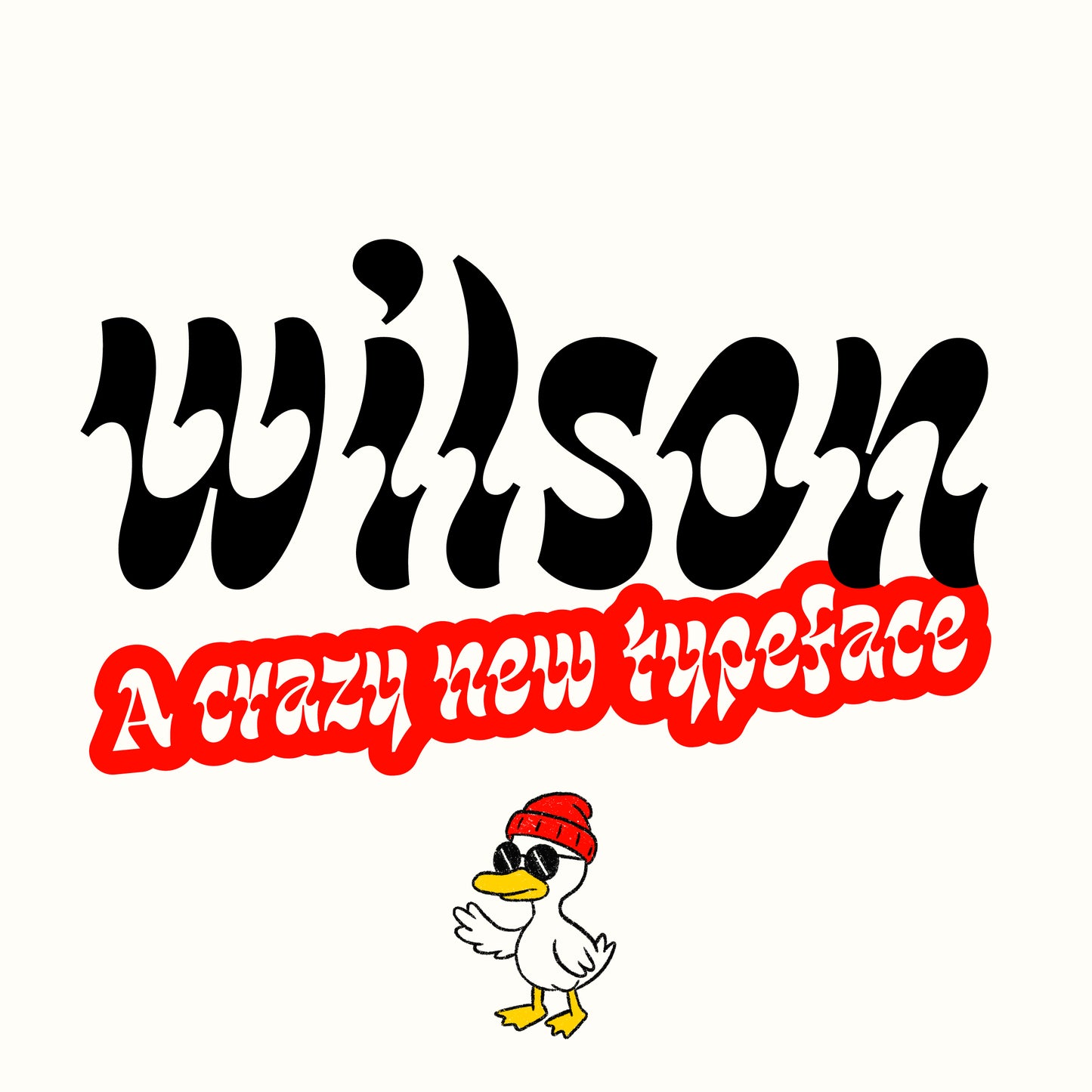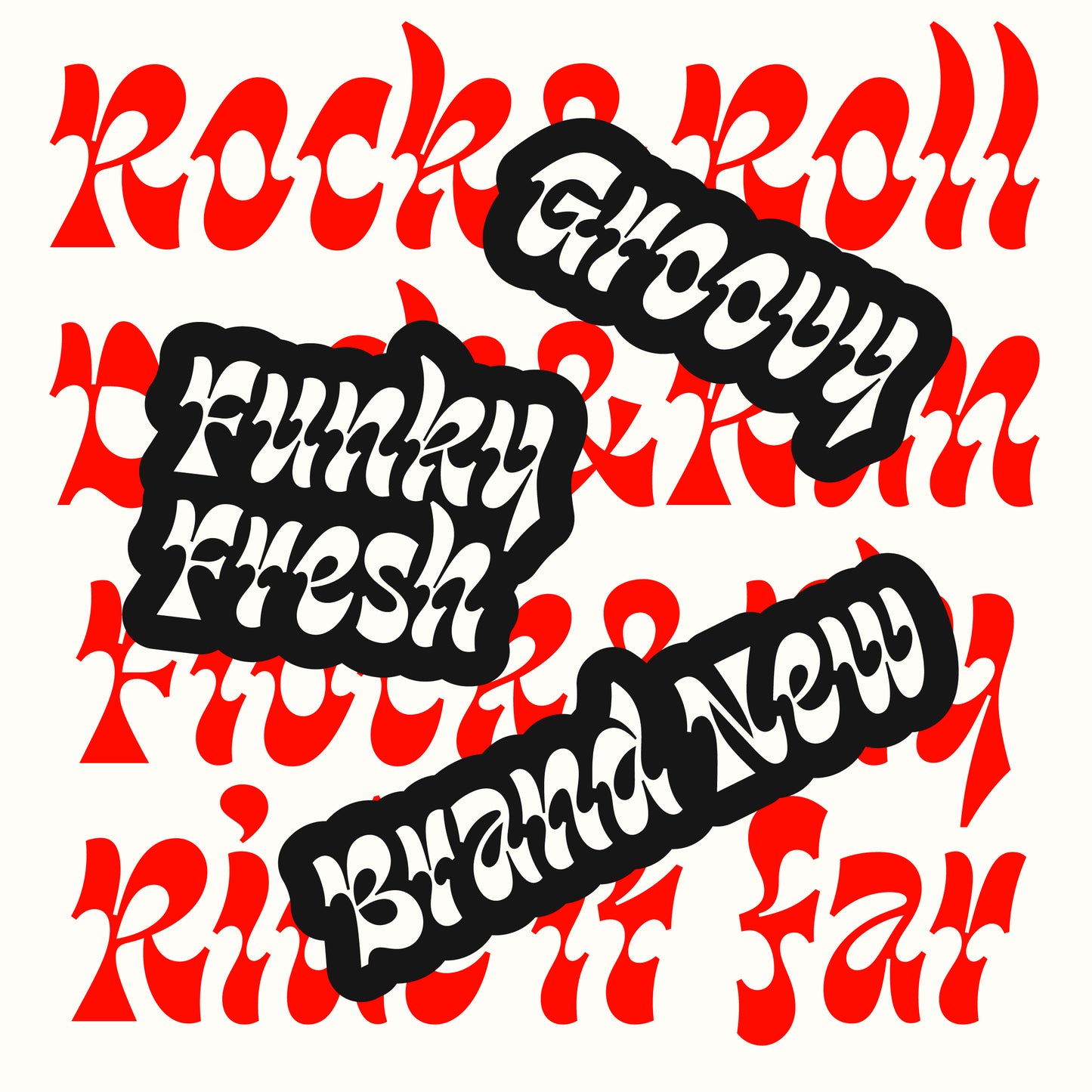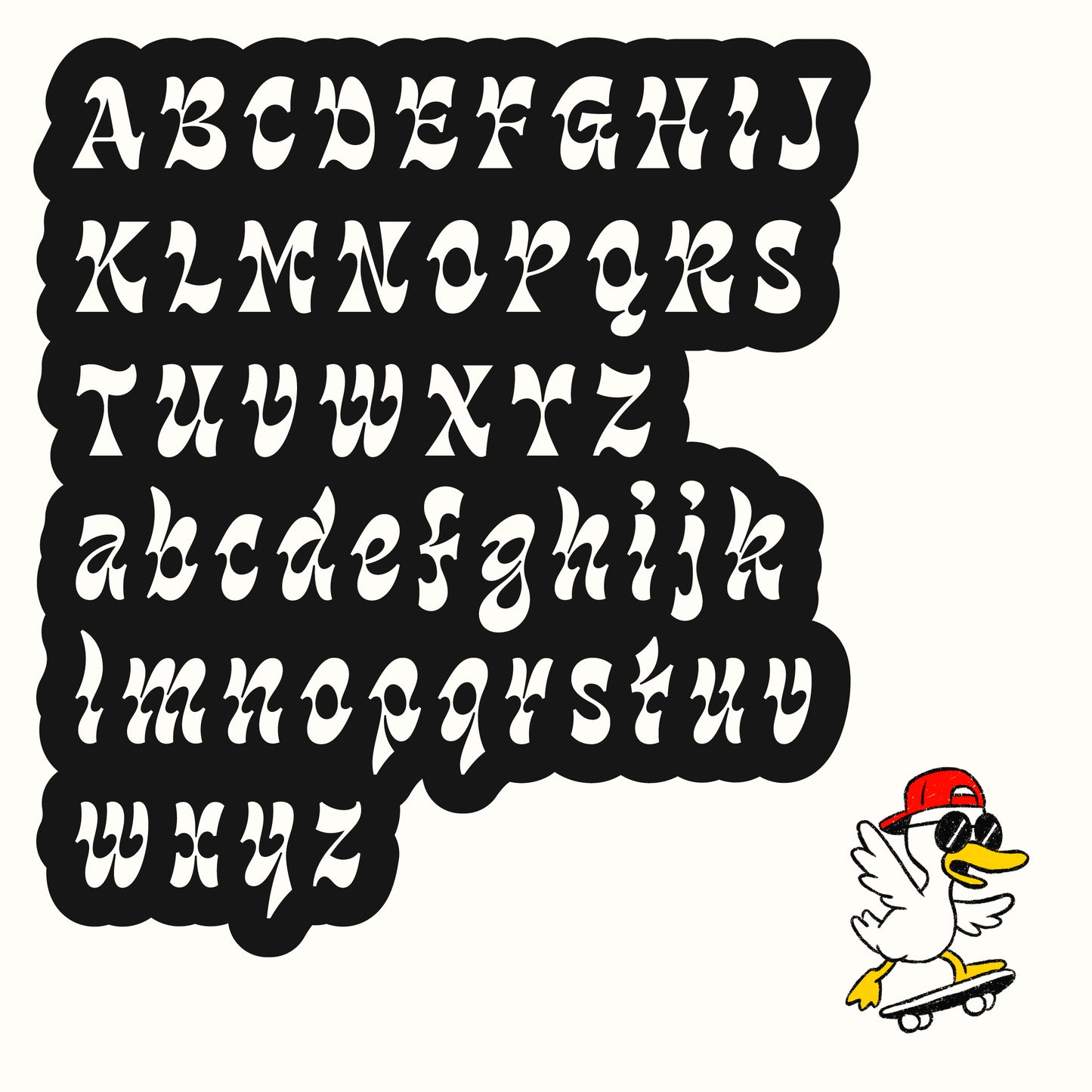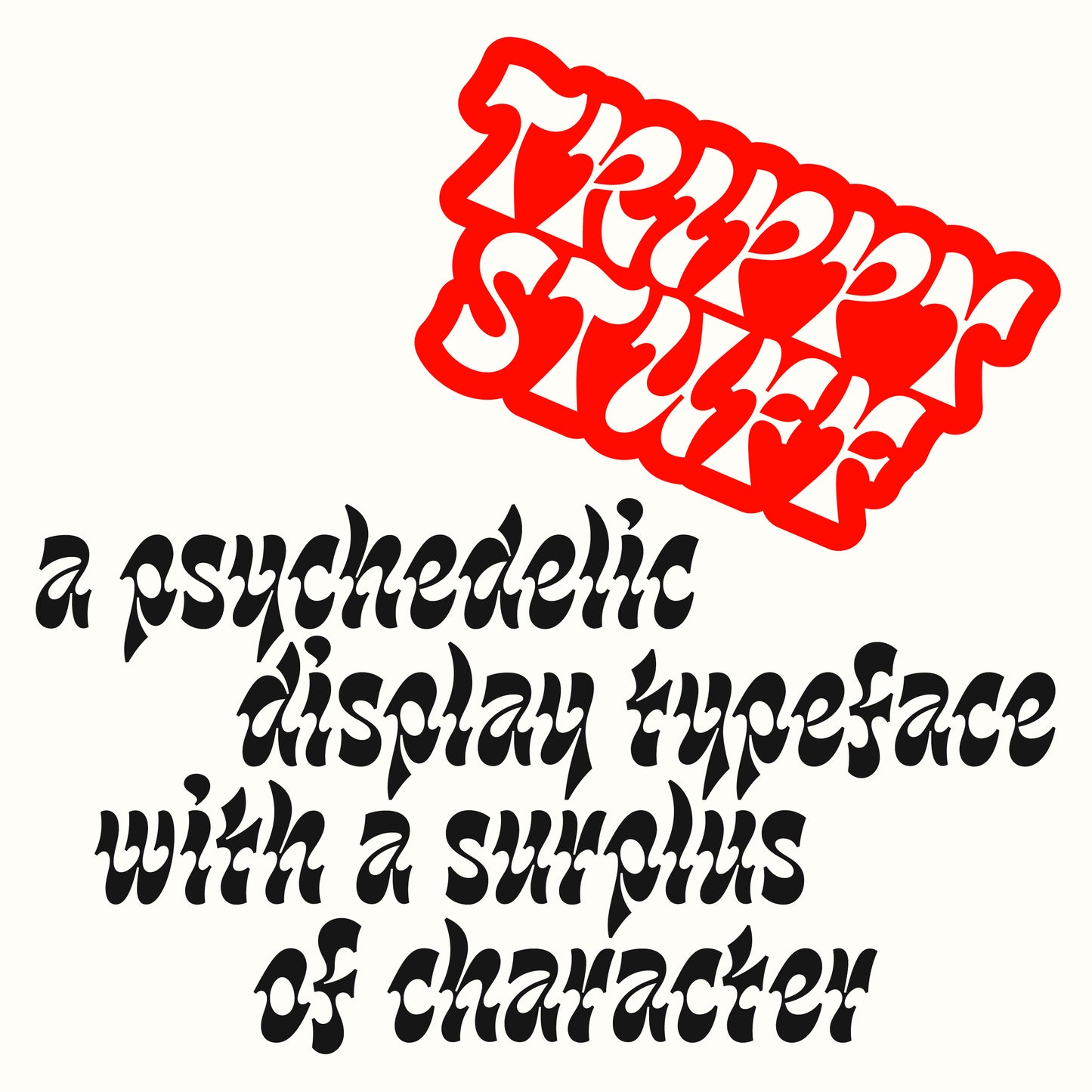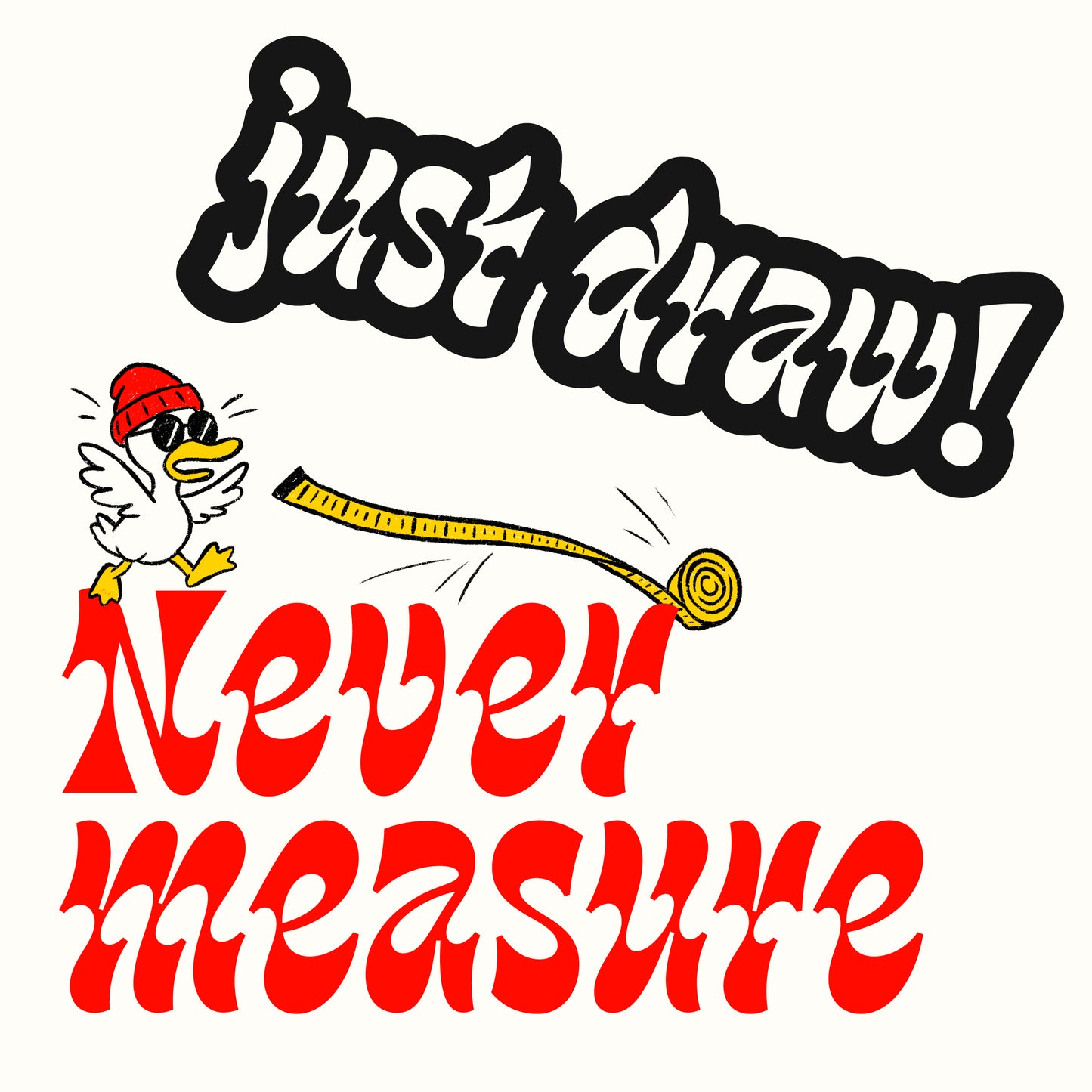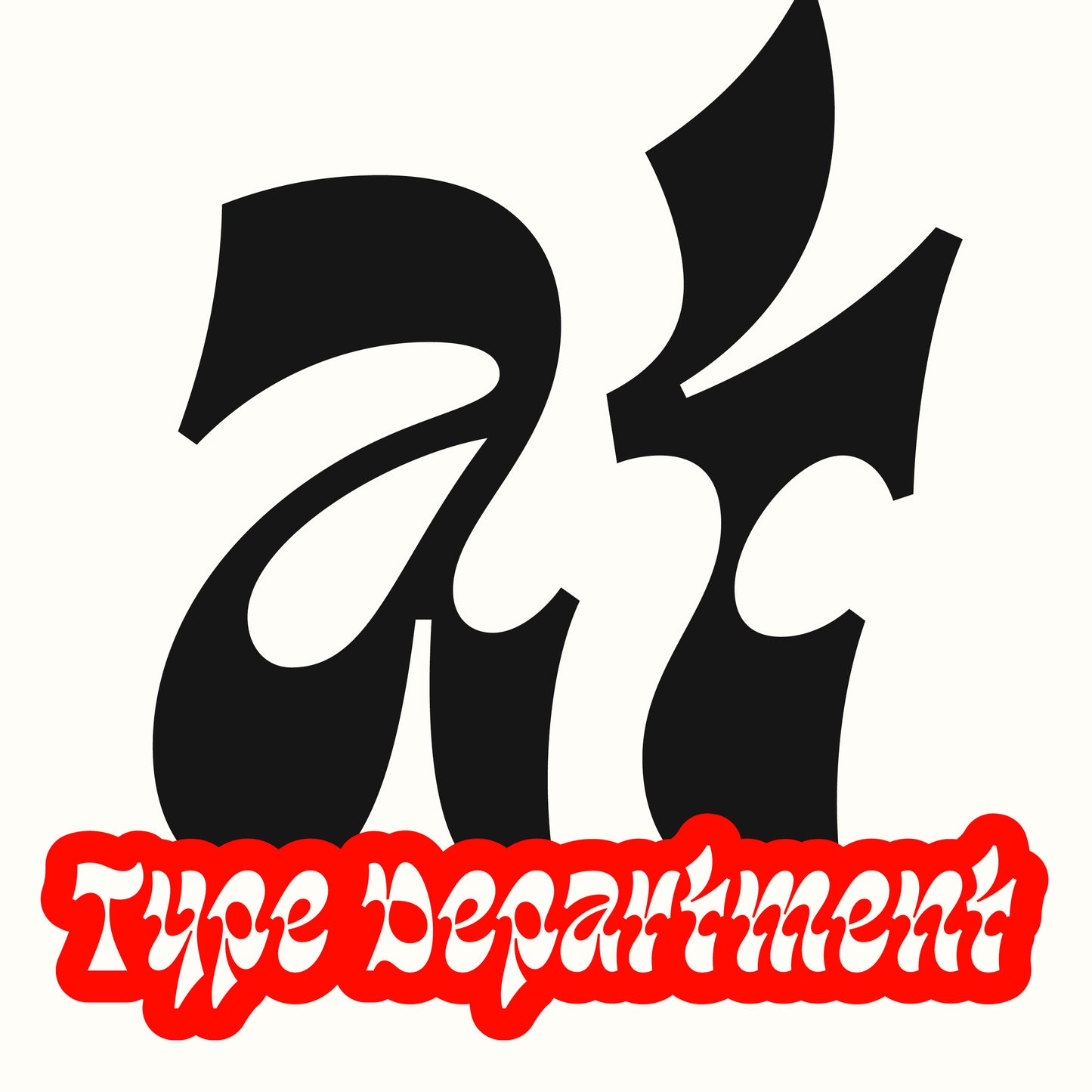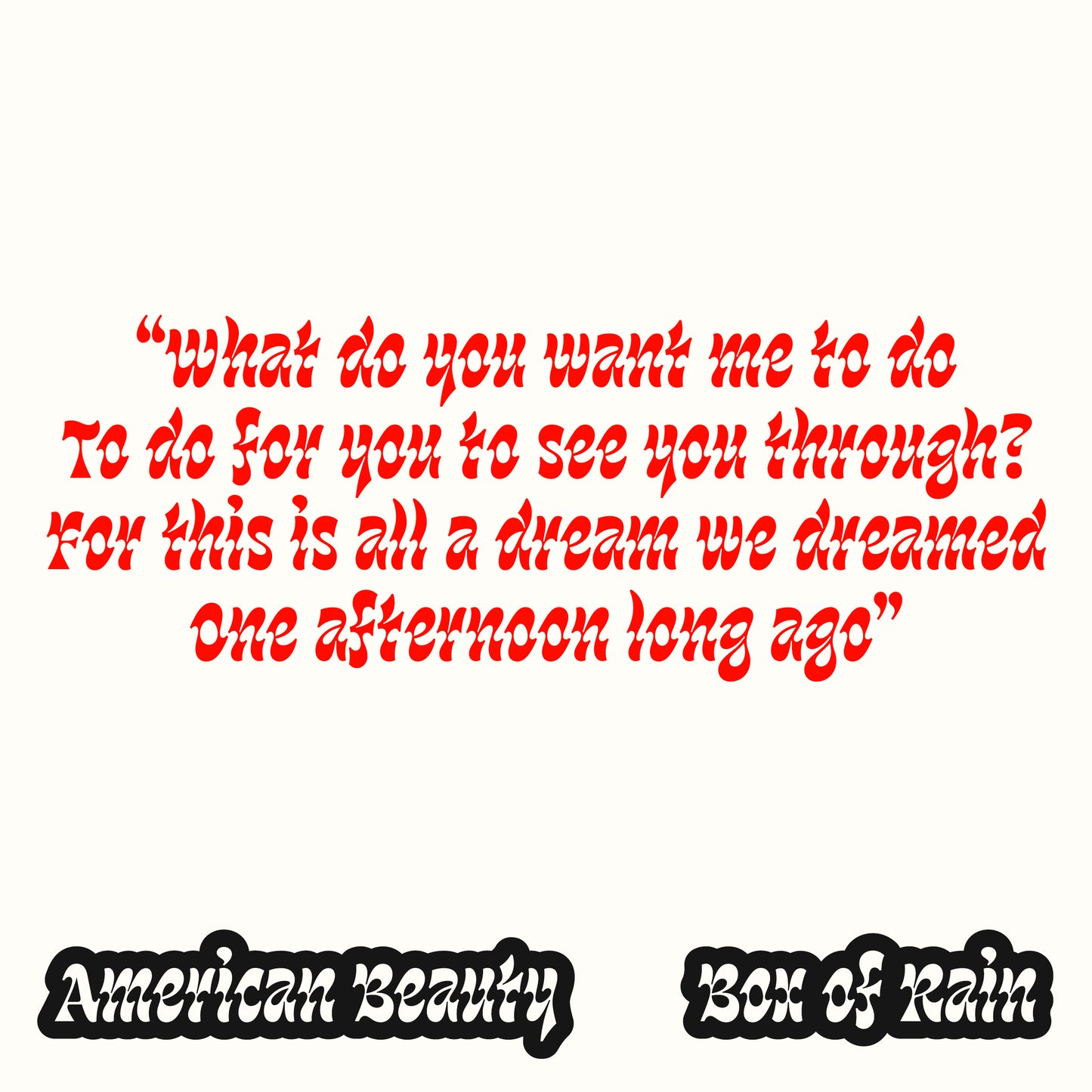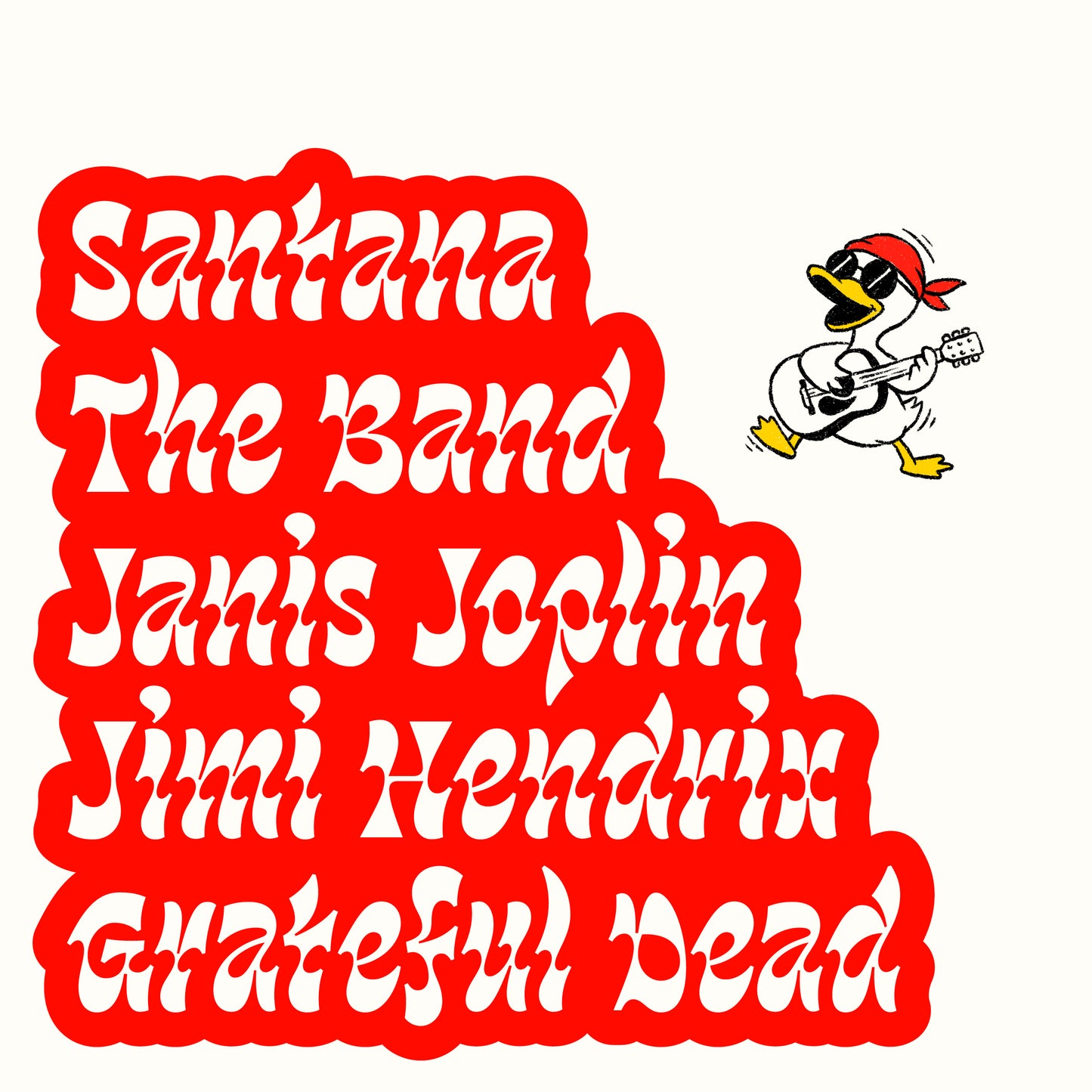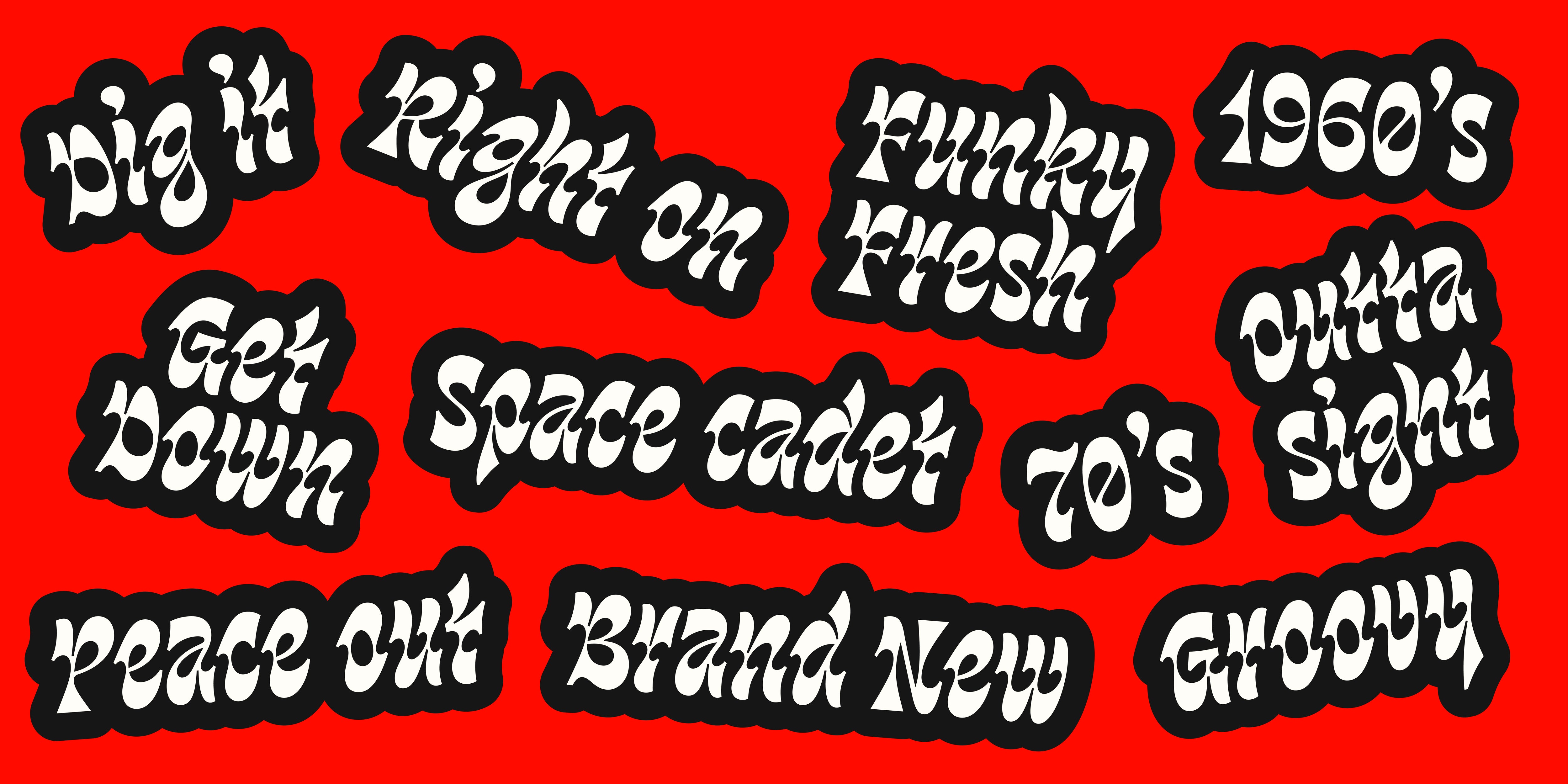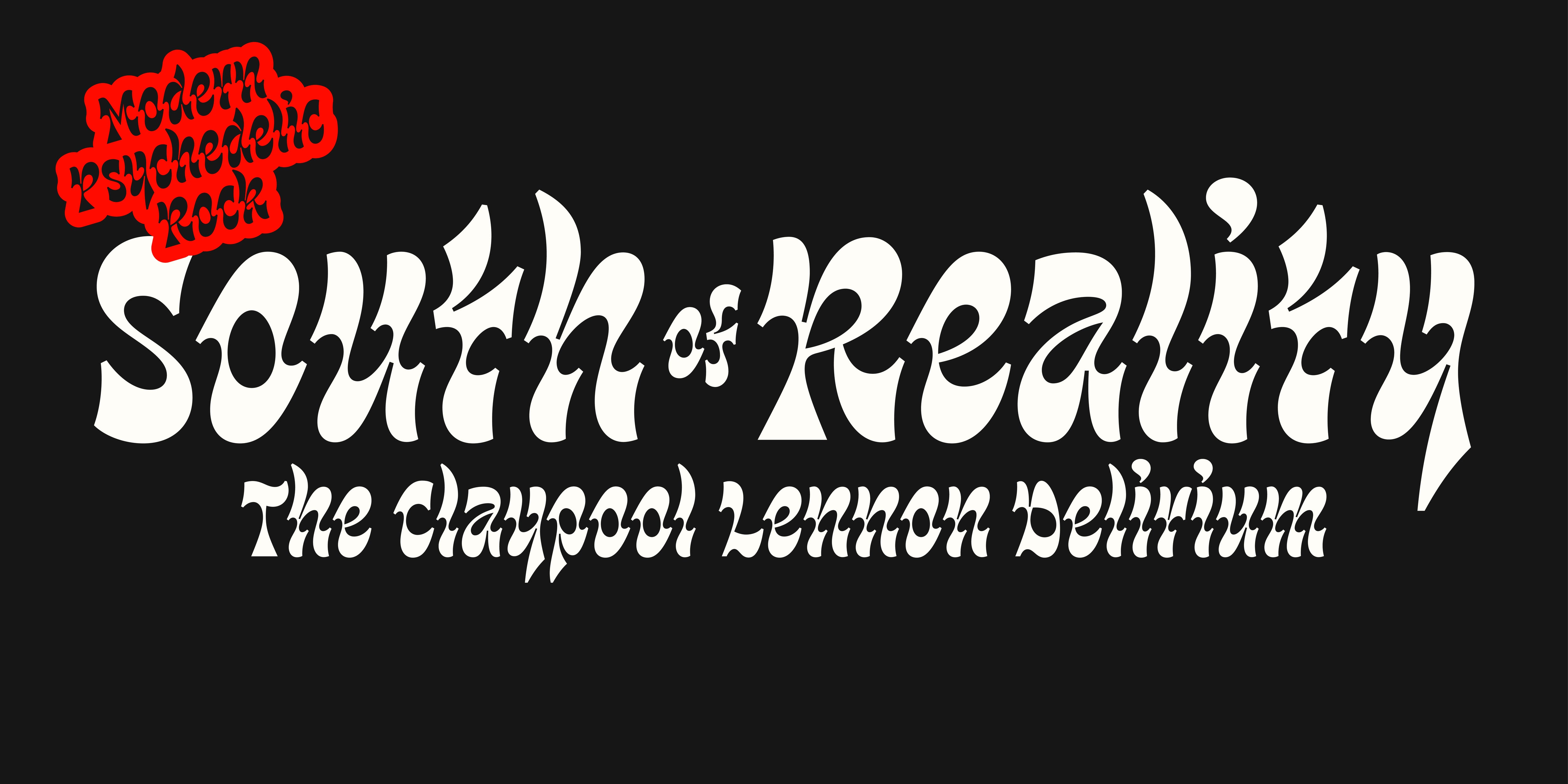
Wilson
Eran Ben Barak
Wilson is a wavy, psychedelic display typeface that channels the spirit of 1960s rock posters into the digital age. Named after Wes Wilson, one of the most influential designers of that era, it celebrates distortion, rhythm, and the beauty of imbalance that somehow feels perfectly in tune.
Drawing inspiration from the interlocking forms and optical illusions of psychedelic lettering, Wilson turns negative space into motion. Each curve and counter is crafted to create the illusion of equal gaps between and within letters—resulting in a hypnotic, fluid texture.